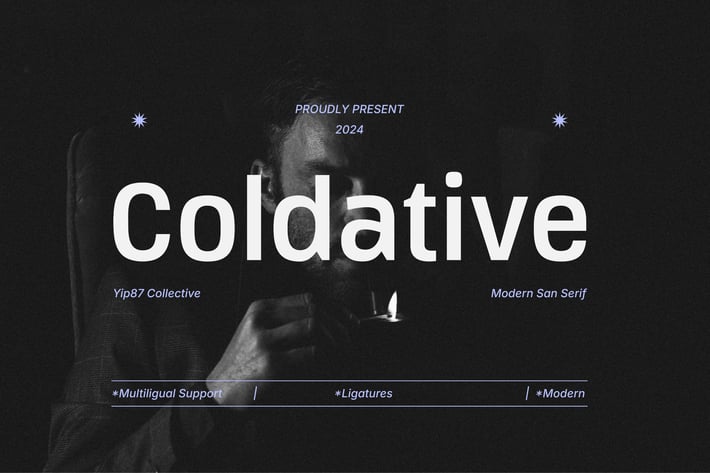
Coldative - Minimal Condensed Sans - Tall Font
Coldative is a Clean Minimalist Modern Condensed Sans Serif, designed specifically for logos, branding, headers / headline, and titling. Coldative is impactful and timeless logos and branding materials. Coldative Font ensures your designs make a lasting impression. Elevate your branding design projects with Coldative Font today.